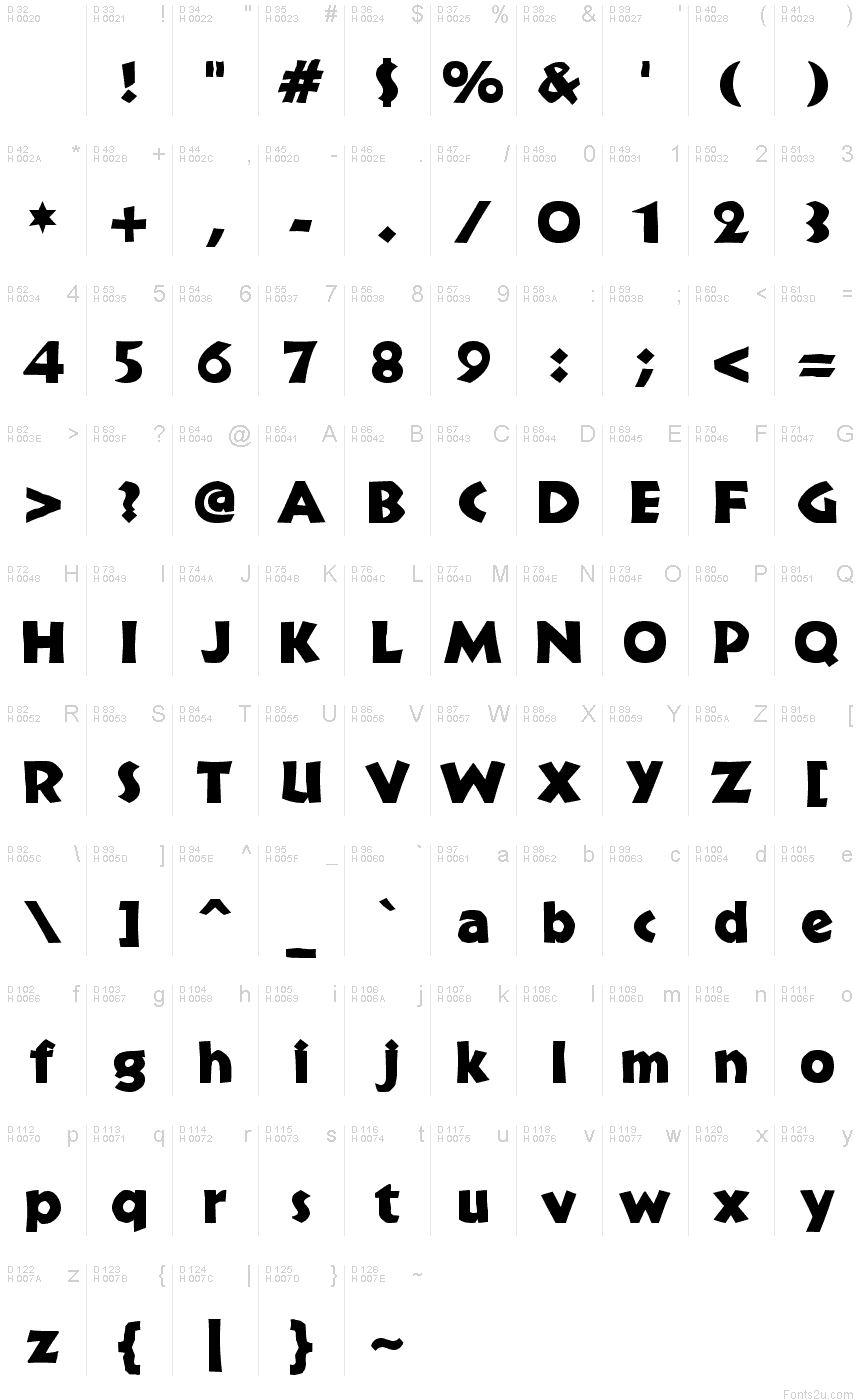
BrideOfTheMonster
BrideOfTheMonster font v1 ©1998 Harold Lohner. The caps and numbers are based on Rudolph Koch's Neuland. This is shareware. You really ought to send me $5. HLohner@aol.com